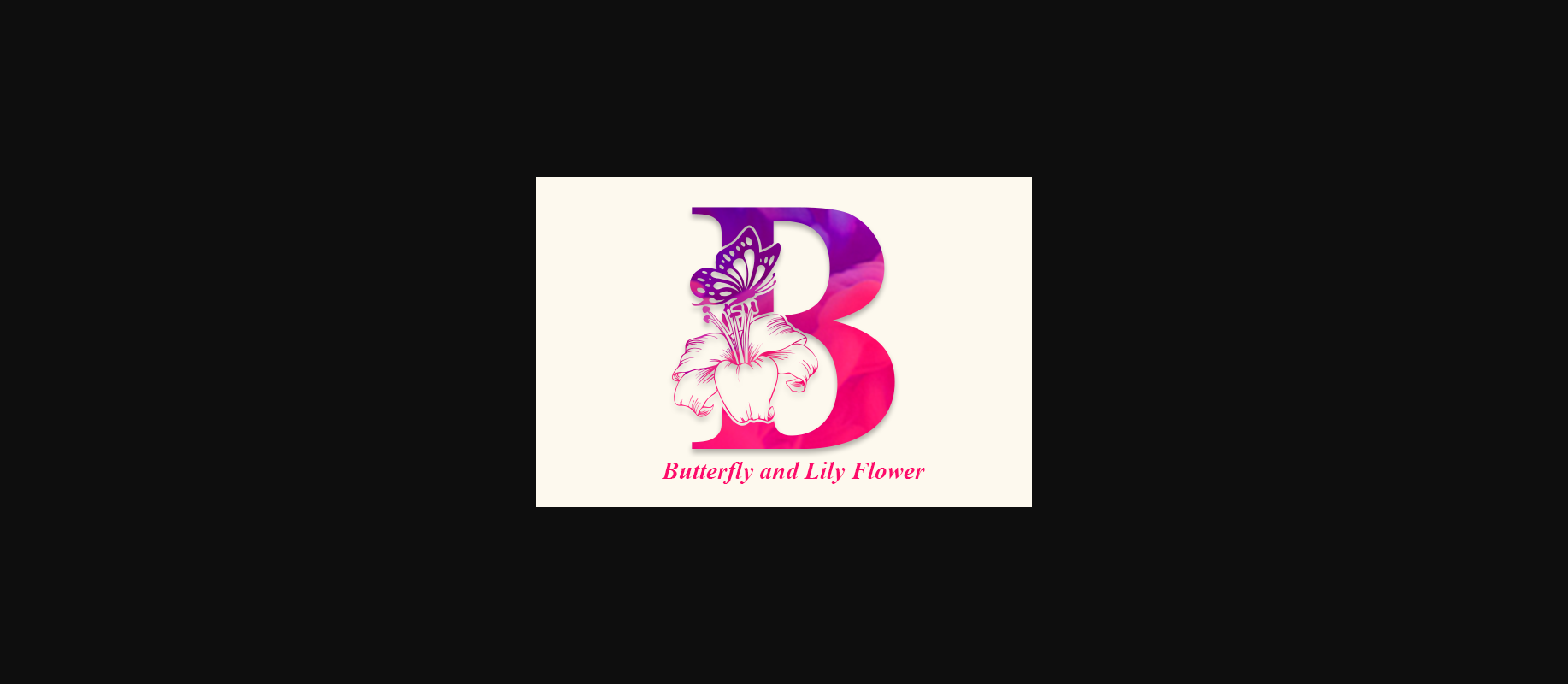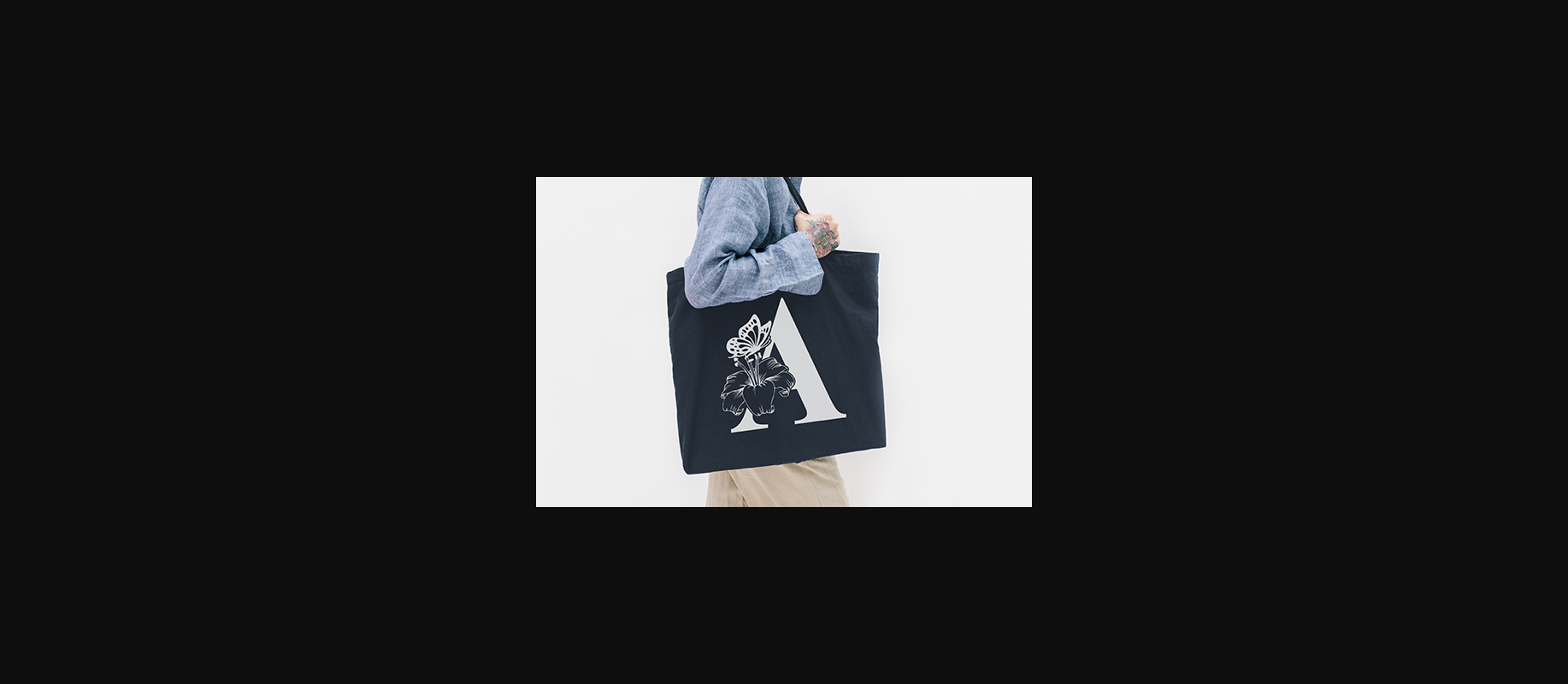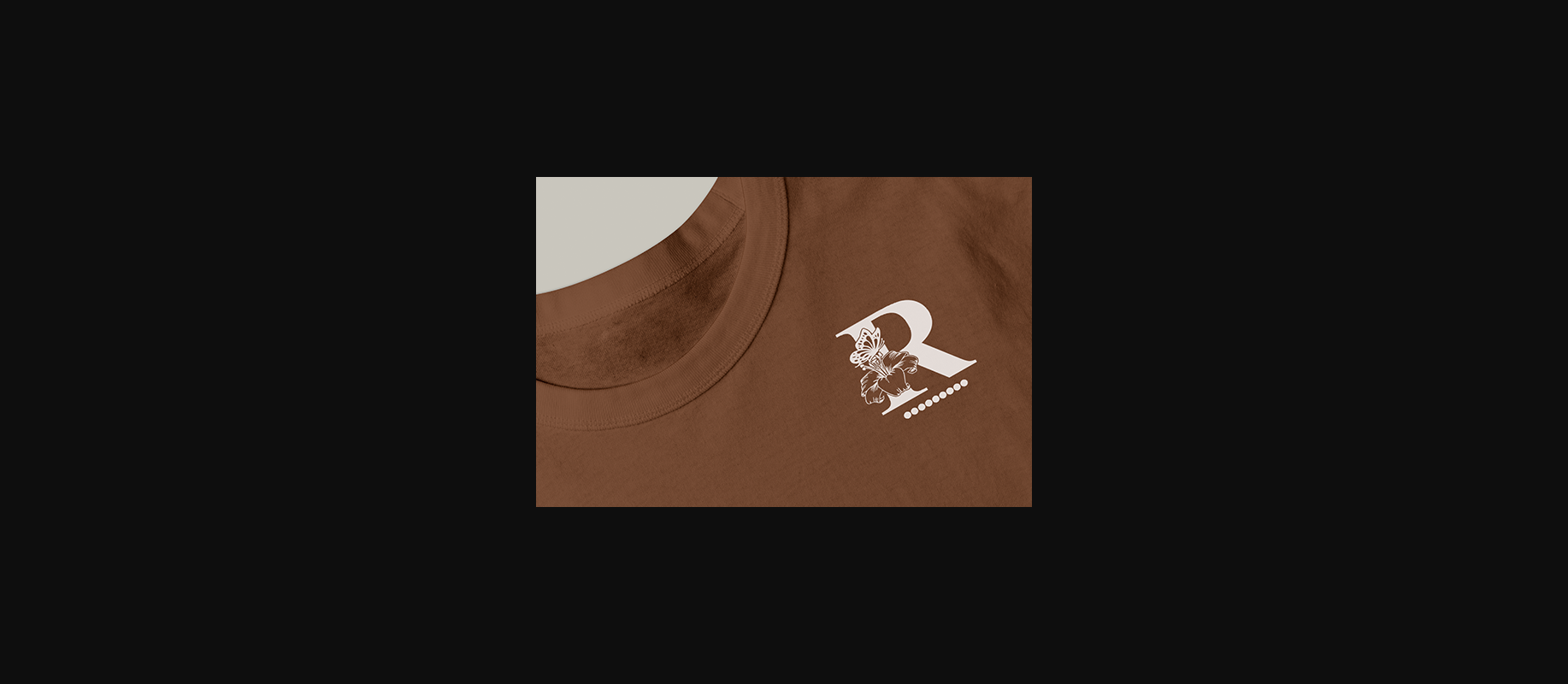
About Butterfly and Lily Flower Font
Butterfly and Lily Flower is an elegant decorative font, featuring lovely ornaments. Fall in love with its authentic feel and use it to create gorgeous wedding invitations, beautiful stationary art, eye-catching social media posts, and cute greeting cards.